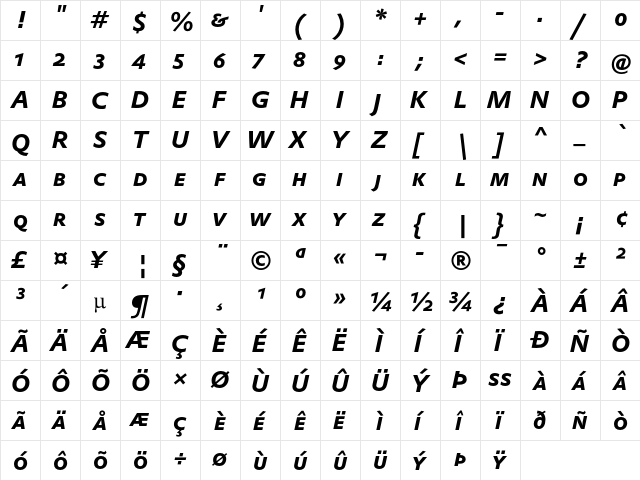
DTLProkyonTCaps Bold Italic
Design Context for DTLProkyonTCaps Typeface
DTLProkyonTCaps is a composed and adaptable typeface that performs quietly and consistently across a wide range of design contexts. The slanted form adds forward momentum and visual energy. Its bold stroke weight gives it real presence on the page.
Pro Tip: Try DTLProkyonTCaps for annotation and caption copy alongside an upright companion — the contrast in angle creates a dynamic but ordered typographic system.